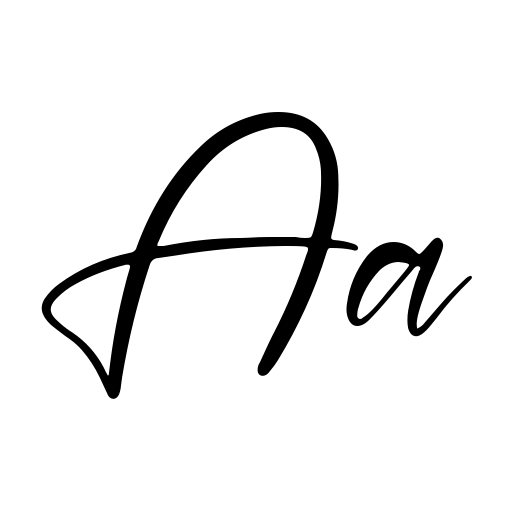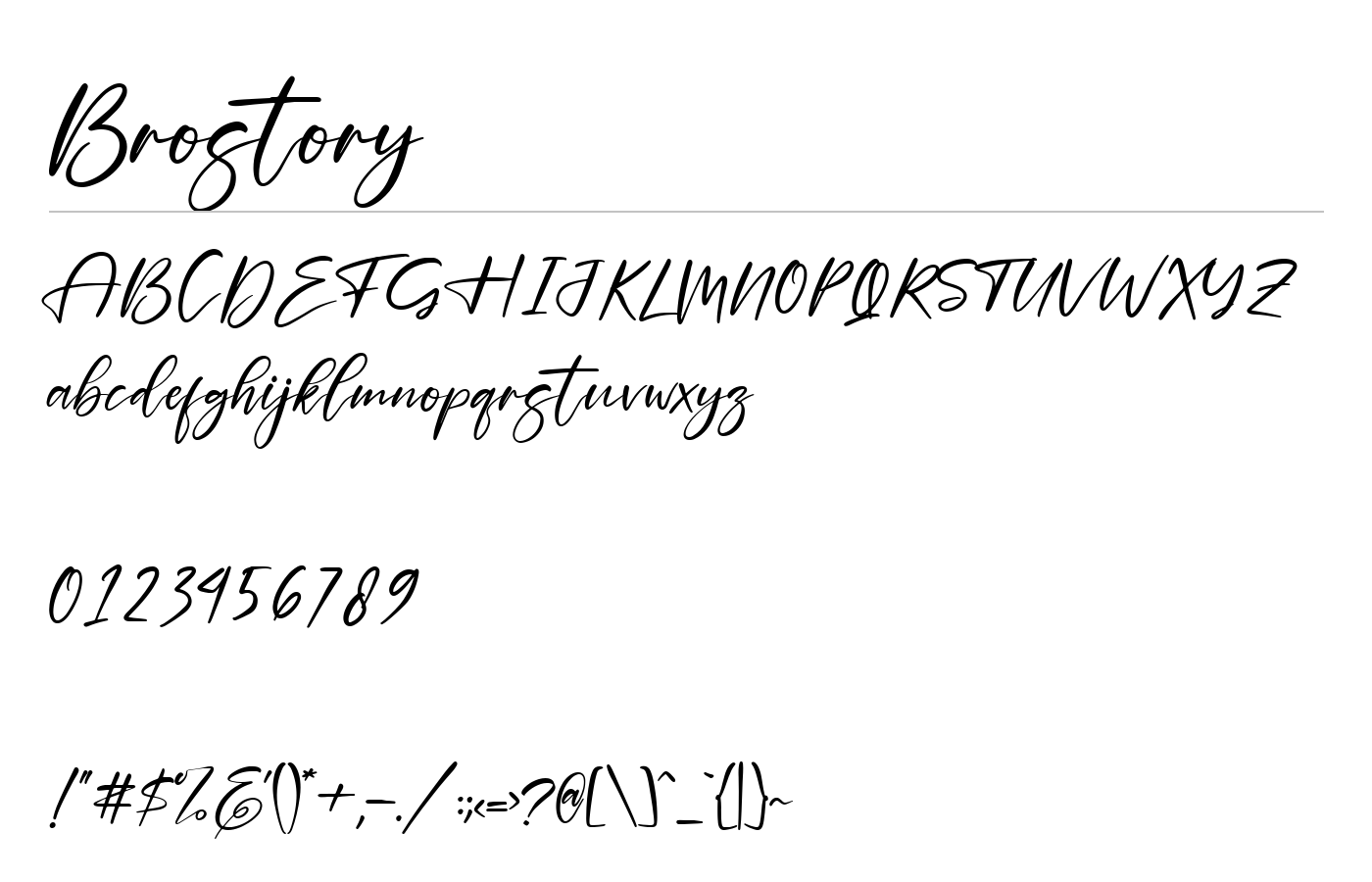
Brostory is a stylish script font that features smooth, flowing strokes with a casual yet elegant feel. Its moderately high x-height and slightly varied stroke weight give it a natural, handwritten look that works beautifully for creative branding, invitations, and modern editorial design. This font’s playful personality and clear readability make it perfect for adding a personal, artistic touch to logos, packaging, and social media headlines.
Brostory Font
About Brostory Font
| Font family | Brostory Font |
| Designer | wildan suprian syah |